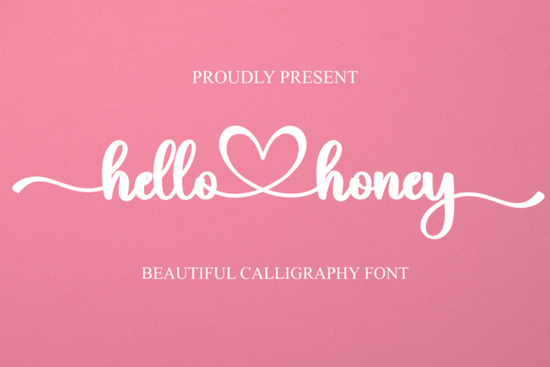
If you're looking for a friendly, warm, and effortlessly legible handwritten font that works across both digital and print projects, Hello Honey Font fits right in. It’s not overly decorative or hard to read just soft curves, consistent spacing, and a gentle hand-drawn rhythm that feels personal without sacrificing clarity. Whether you’re designing wedding stationery, labeling small-batch goods, or adding a custom watermark to your photography, this script font brings quiet charm without demanding attention.
What kinds of projects does Hello Honey Font work well for?
It’s especially practical for creators who need versatility without switching fonts mid-project. Think: a single design file used for Instagram story text, printable gift tags, and product packaging labels all using the same typeface. Because the letterforms are clean and balanced (not too thin, not too bouncy), it holds up well at smaller sizes like on jar labels or business cards and still shines large, as in wall art or framed quotes.
Small businesses love it for branding consistency: imagine using Hello Honey Font across your Etsy shop banner, product descriptions, and thank-you cards. Print-on-demand sellers find it reliable for mugs, tote bags, and greeting cards it translates cleanly to screen printing and DTG. Crafters appreciate how easily it pairs with simple line art or watercolor textures, especially when building themed kits like baby shower invites or seasonal recipe cards.
How does it compare to other popular script fonts on Creative Fabrica?
Unlike some highly stylized scripts that lean heavily into swirls or dramatic contrast, Hello Honey sits comfortably between formal and casual. It shares that approachable warmth with Partly Notes Font, but with slightly more even baseline alignment helpful if you’re layering text over photos or tight layouts. Compared to Splashed Font, it’s less energetic and more suited to calm, thoughtful messaging think “thank you” notes rather than party announcements. And while Family Farmhouse Font leans rustic and weathered, Hello Honey keeps things smooth and modern, making it a better fit for minimalist or Scandinavian-inspired designs.
For holiday-specific work, Christmas Font options often include snowflakes or extra ornamentation fun, but limiting outside December. Hello Honey stays usable year-round, though it layers beautifully with festive elements if you want to adapt it seasonally. That flexibility is why many designers keep it in their go-to folder alongside Hello Honey Font itself not as a one-off, but as a dependable tool.
Where do people actually use it?
We’ve seen real examples from users across different creative roles:
- A pottery maker using it for hand-stamped ceramic tags the rounded shapes mimic brush-lettered marks without needing custom carving.
- A wedding planner pairing it with serif body text for save-the-date cards, then reusing the same font for signage at the venue.
- A photographer adding subtle watermarks to portfolio images visible enough to credit, soft enough not to distract.
- An indie candle brand applying it to soy wax melt packaging, where legibility at 12 mm height matters more than flair.
Is it beginner-friendly?
Yes especially if you’ve ever hesitated before buying a script font because of kerning issues or inconsistent spacing. Hello Honey was designed with even rhythm in mind. Letters connect naturally where they should (like “to”, “the”, “and”) but don’t force joins where they’d look awkward. That means less manual tweaking in your design software fewer hours spent adjusting letter spacing, more time spent finalizing colors or layout.
If you’re new to working with script fonts, try starting with short phrases first: “Hand-poured”, “Made with love”, “Small batch”. These test readability and tone without overwhelming your layout. Once you’re comfortable, layer it over neutral backgrounds or pair it with a clean sans-serif for contrast like Hello Honey Font for headings and Montserrat or Lato for body text.